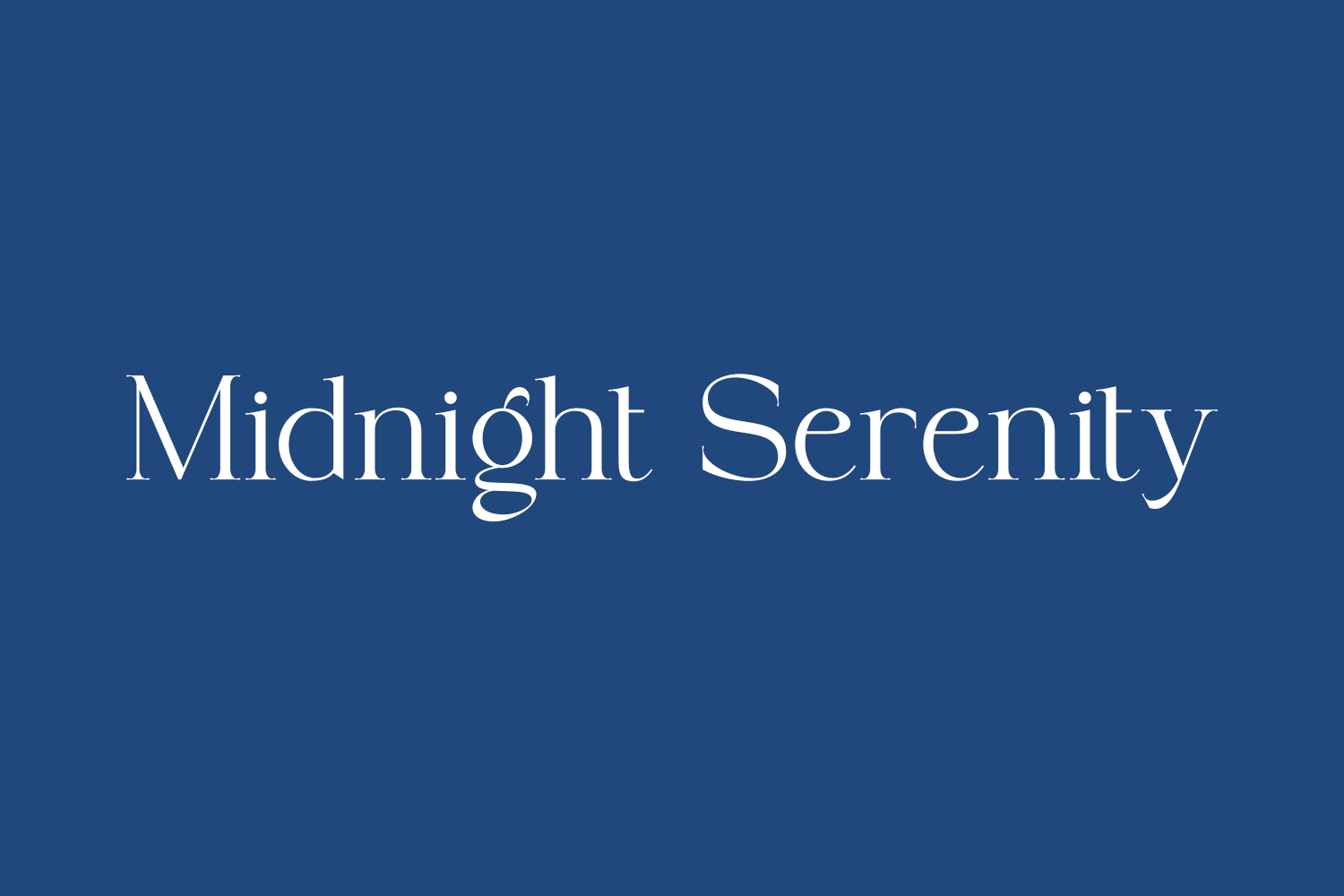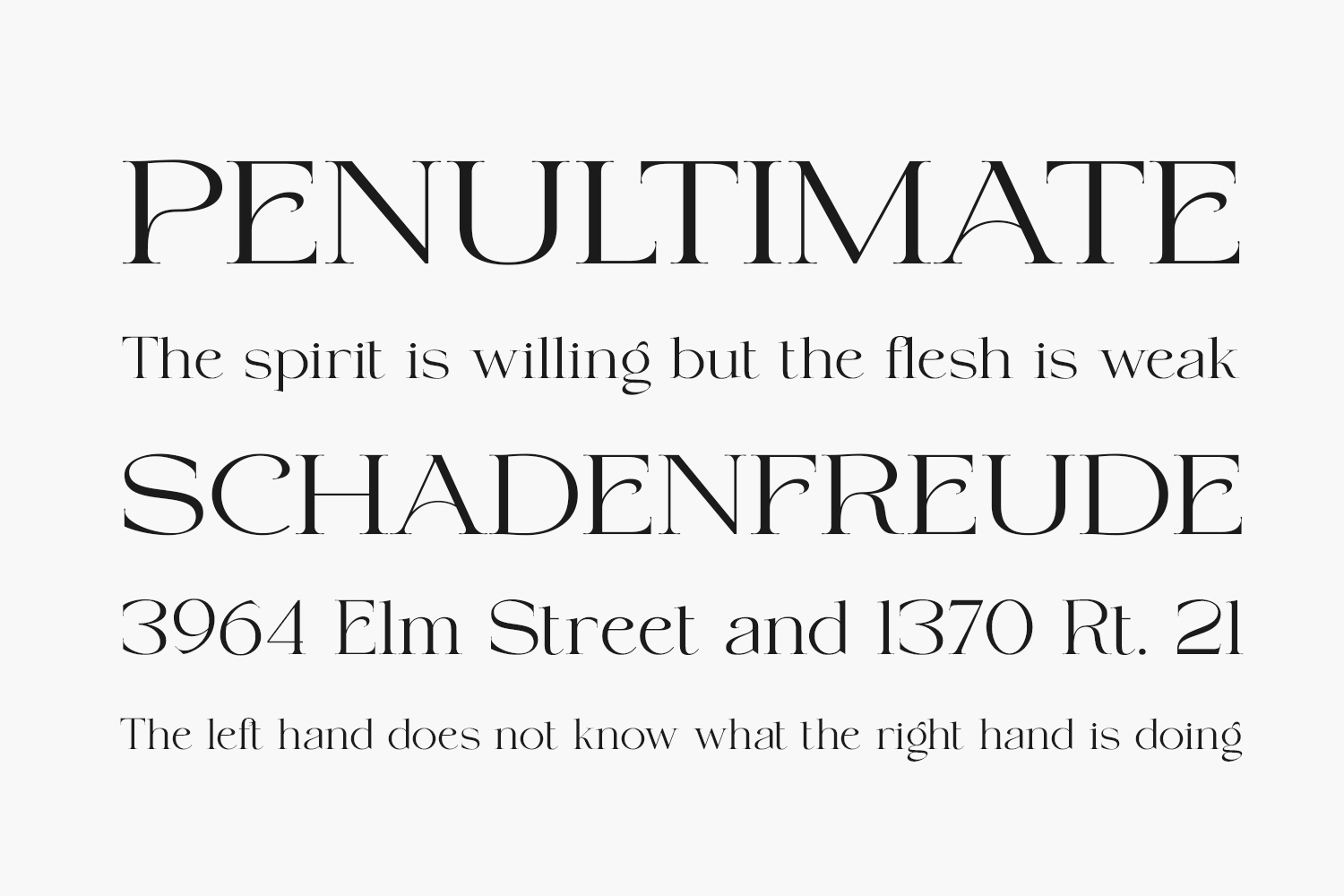
Midnight Serenity Free Font Family exudes sophistication by seamlessly blending two captivating styles-classic calligraphy and modern serif. Available in both regular and italic versions, this typeface is tailored for titles and short texts. Ideal for a wide range of applications including advertising, vintage mood boards, branding, logotypes, packaging, editorial designs, modern logos, websites, social media quotes, wedding branding, as well as modern and vintage design projects. Elevate your designs with the timeless charm of Midnight Serenity. Download the font for free if you need it for personal use or purchase the full version for commercial use.